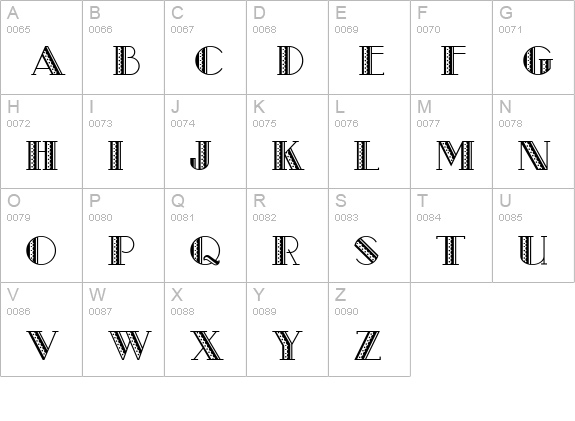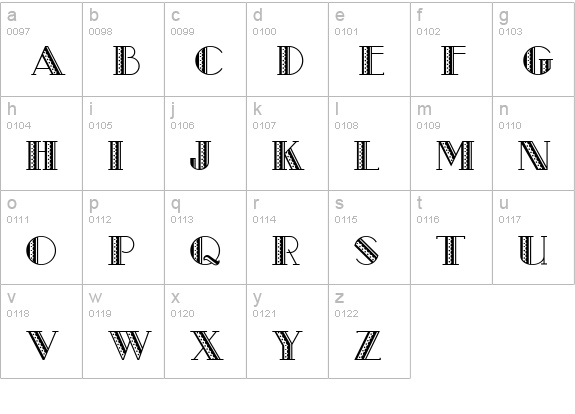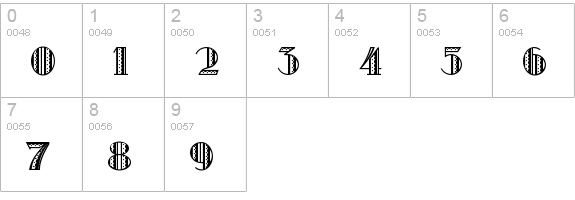
Metro Retro NF Font Details
Metro Retro NF is a charming and versatile font that effortlessly combines a classic retro style with a modern twist. With its clean lines and bold lettering, this font is perfect for adding a touch of nostalgia to any design project. Whether you're creating vintage-inspired logos, posters, or branding materials, Metro Retro NF is sure to make a statement. And the best part? Metro Retro NF is completely free to download at FontsMarket.com! Simply visit the website to grab your copy of this stylish font and start incorporating it into your designs today. Don't miss out on the opportunity to enhance your projects with this unique and eye-catching typeface.